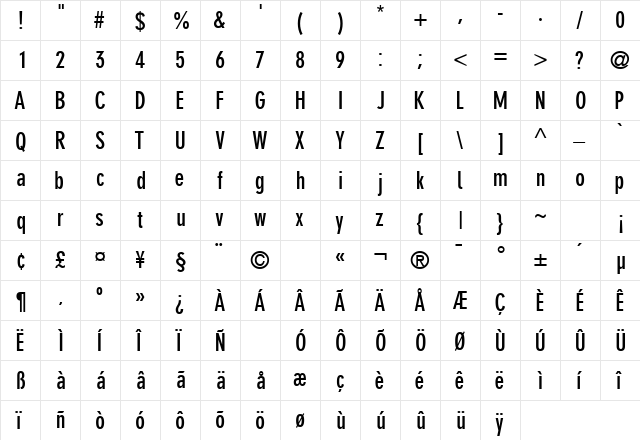
ParallaxGroteskSSK Bold
Design Context for ParallaxGroteskSSK Typeface
ParallaxGroteskSSK has the quiet confidence of well-executed sans-serif typography: versatile, unobtrusive, and dependable at any size. The heavy weight commands attention and anchors typographic hierarchies.
A strong choice for UI design, app interfaces, bold signage, and corporate brand systems.
Font Pairing: Use ParallaxGroteskSSK for headlines alongside a lighter-weight sans or serif for body copy to establish clear visual hierarchy.
Pro Tip: Pair ParallaxGroteskSSK with a display or serif font for headlines — its neutral character makes it an excellent supporting player in complex typographic systems.